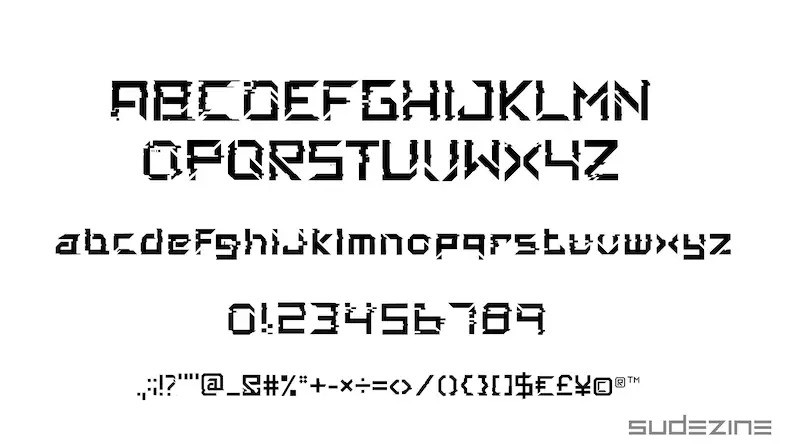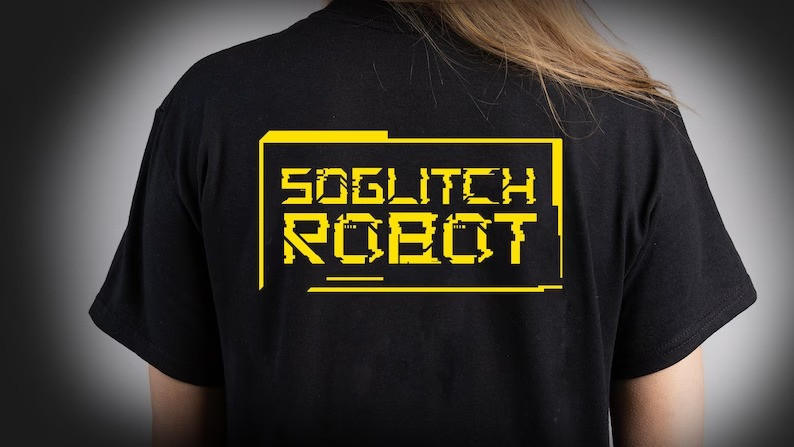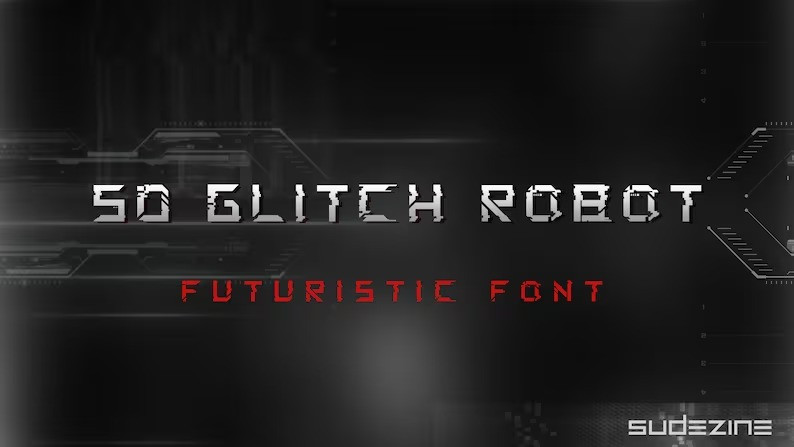
SD Glitch Robot Font
SD Glitch Robot Font is a Futuristic Science Font, Use logos, quotes, invitations, greeting cards, journals, posters, clothing, and more.